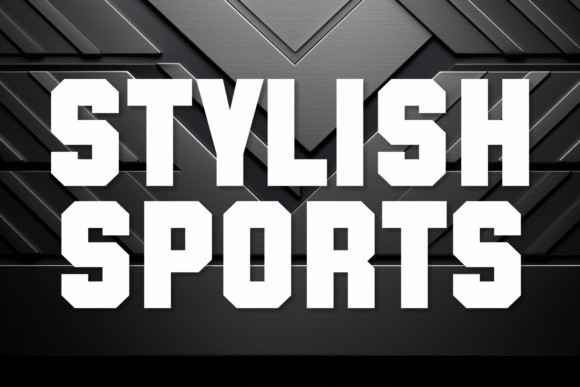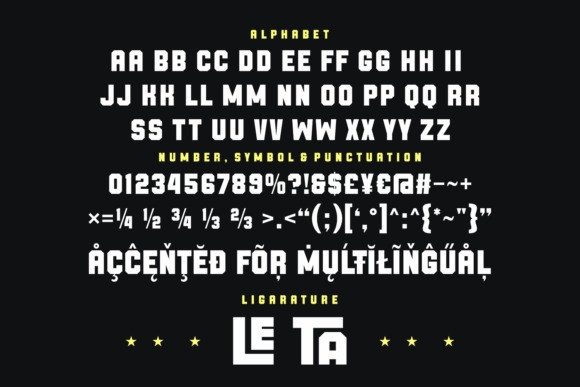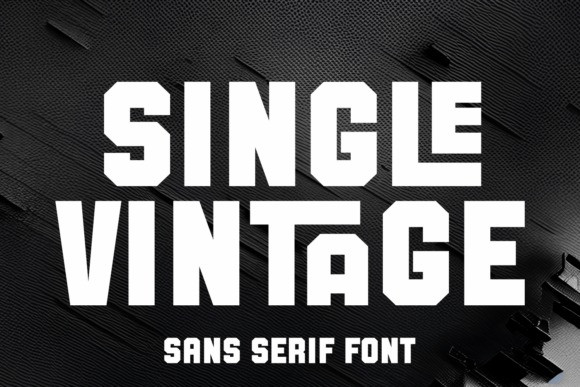
Single Vintage Font is a sleek Sans-Serif typeface infused with a unique blend of a distinct contemporary style and a hint of vintage charm. This font showcases clean, geometric nuances, making it an essential choice for professionals.
Featuring a condensed, bold look, this display font exudes a minimal yet strong impact, making it ideal for headlines and editorial work. Primed for attention-grabbing posters and sophisticated branding projects, its modern typeface strikes a perfect balance between being tall yet narrow.
A fashion-forward magazine font, Single Vintage doesn’t shy away from making a stylish statement. Perfect as a logo font, it perfectly encapsulates the energy of sports and the sleekness of modern lettering. Engulfed in an urban aura, this creative font aligns itself with today’s graphic trends. The versatility of this web font offers not just admirable print results, but also a streamlined, simple design, effortlessly enhancing any advertising effort.
For the ones bold enough to be different, the Single Vintage Modern Sans Font is a powerful and assertive choice. Cloaked in minimalistic grace, this sleek font stands to redefine modern typography. Give your designs the edge they deserve! PUA encoding is included, ensuring all special characters and decorative elements are easily accessible without additional software